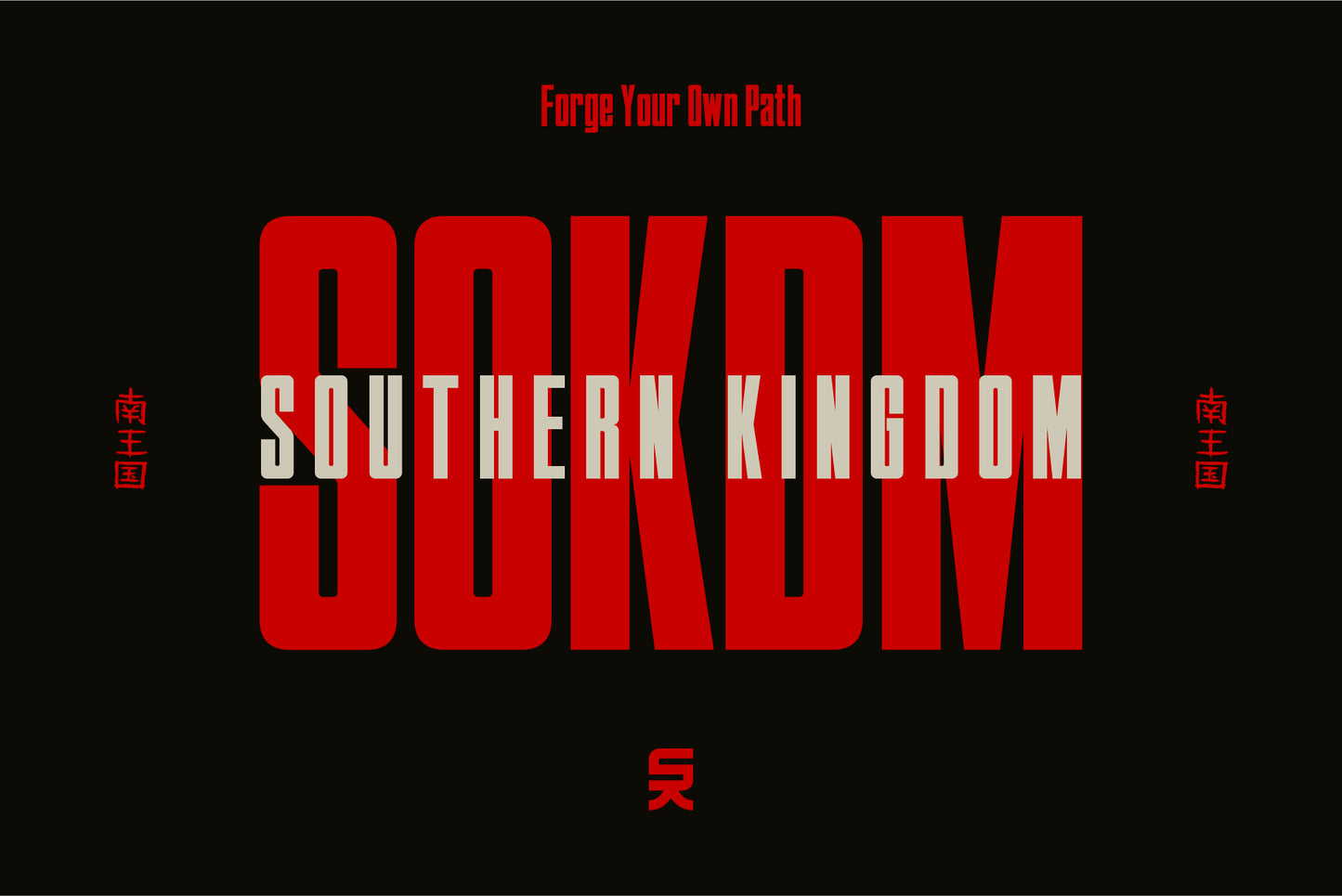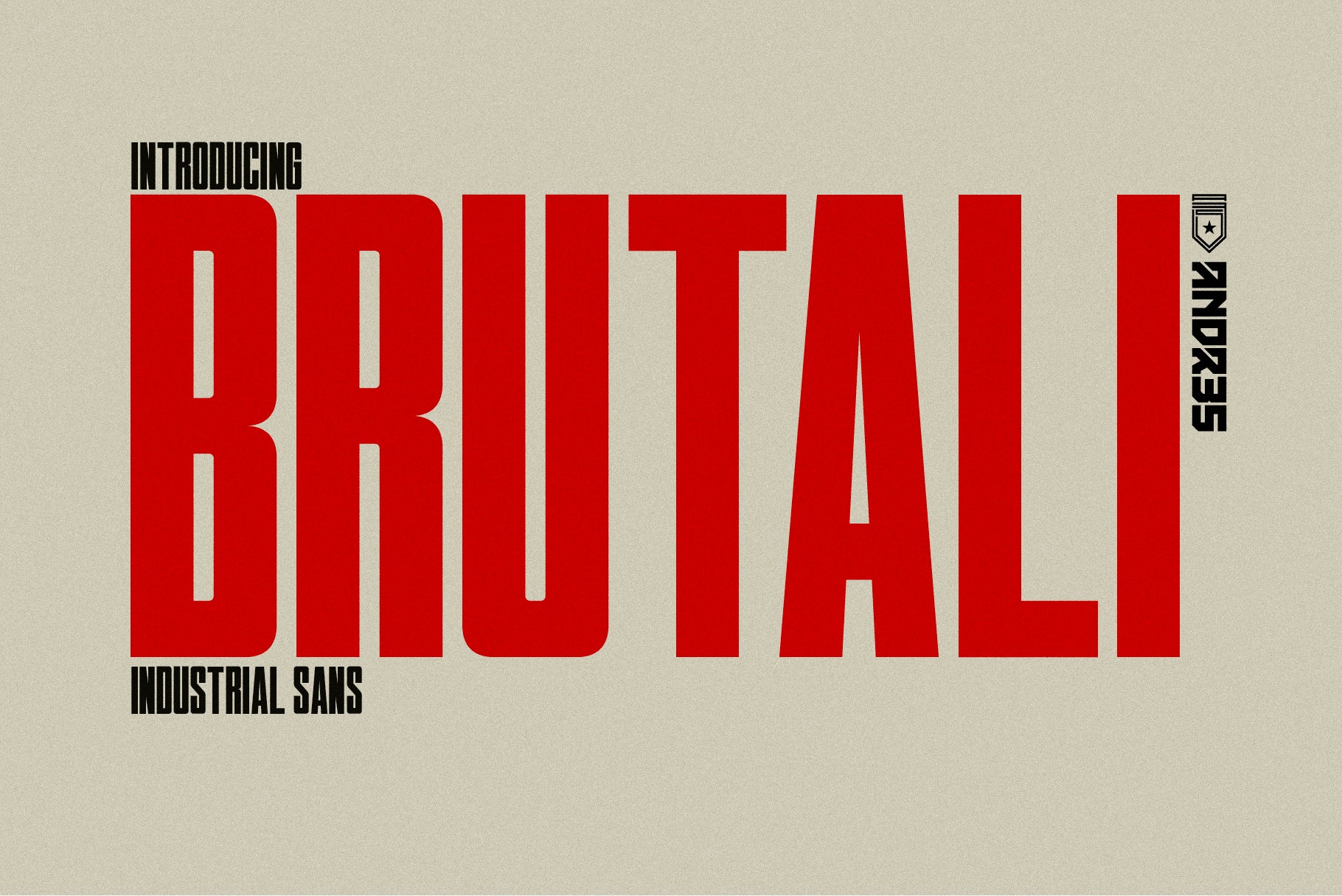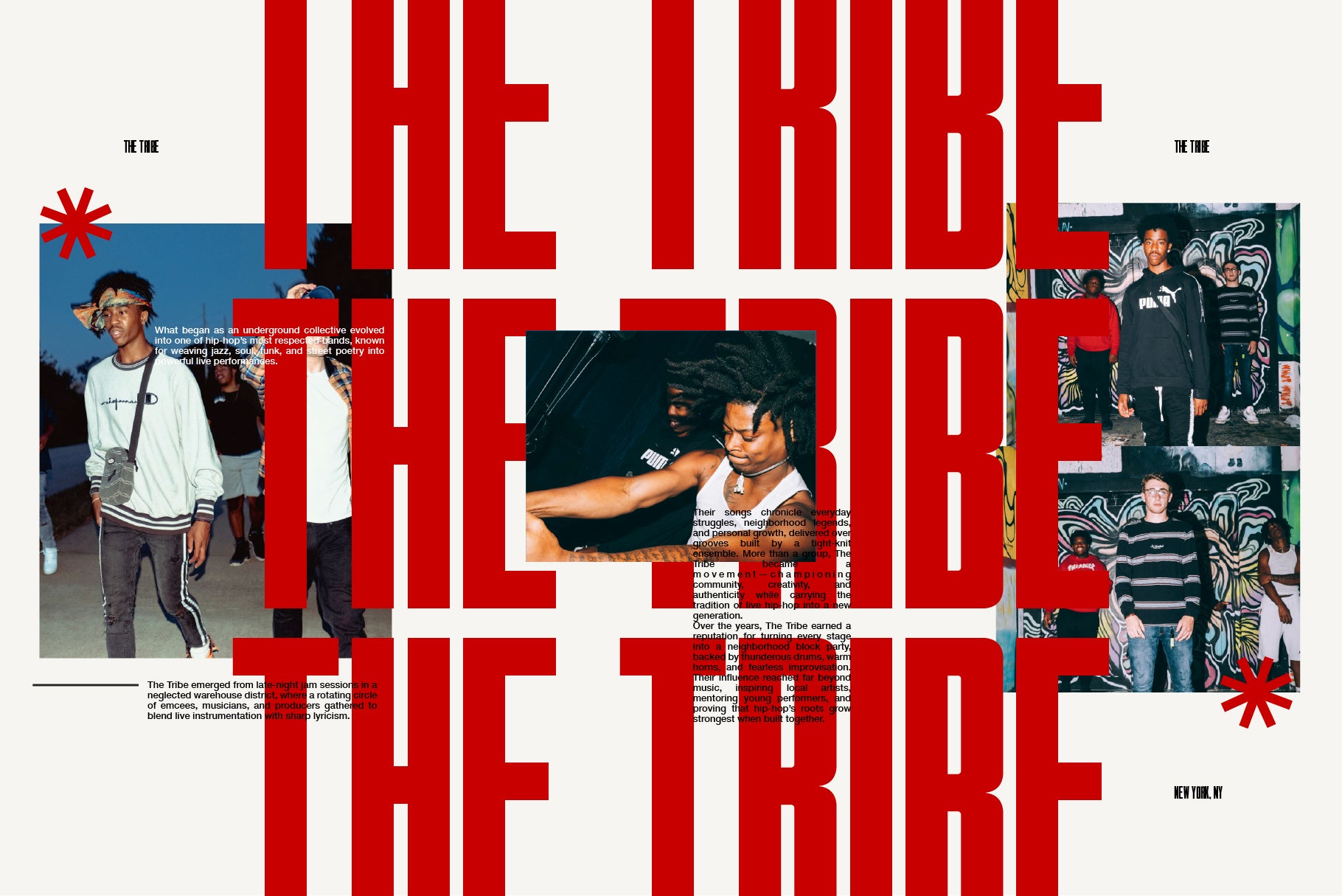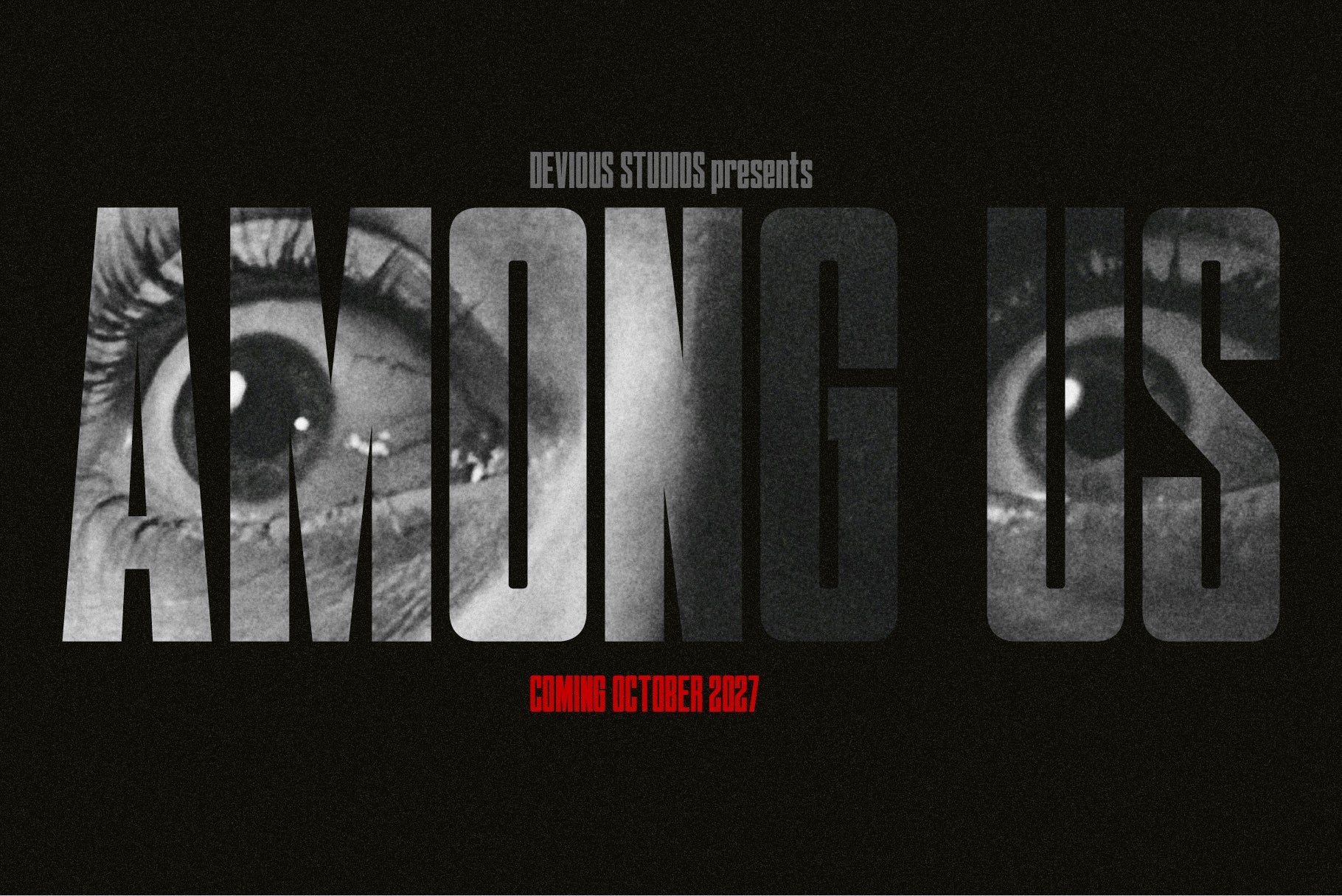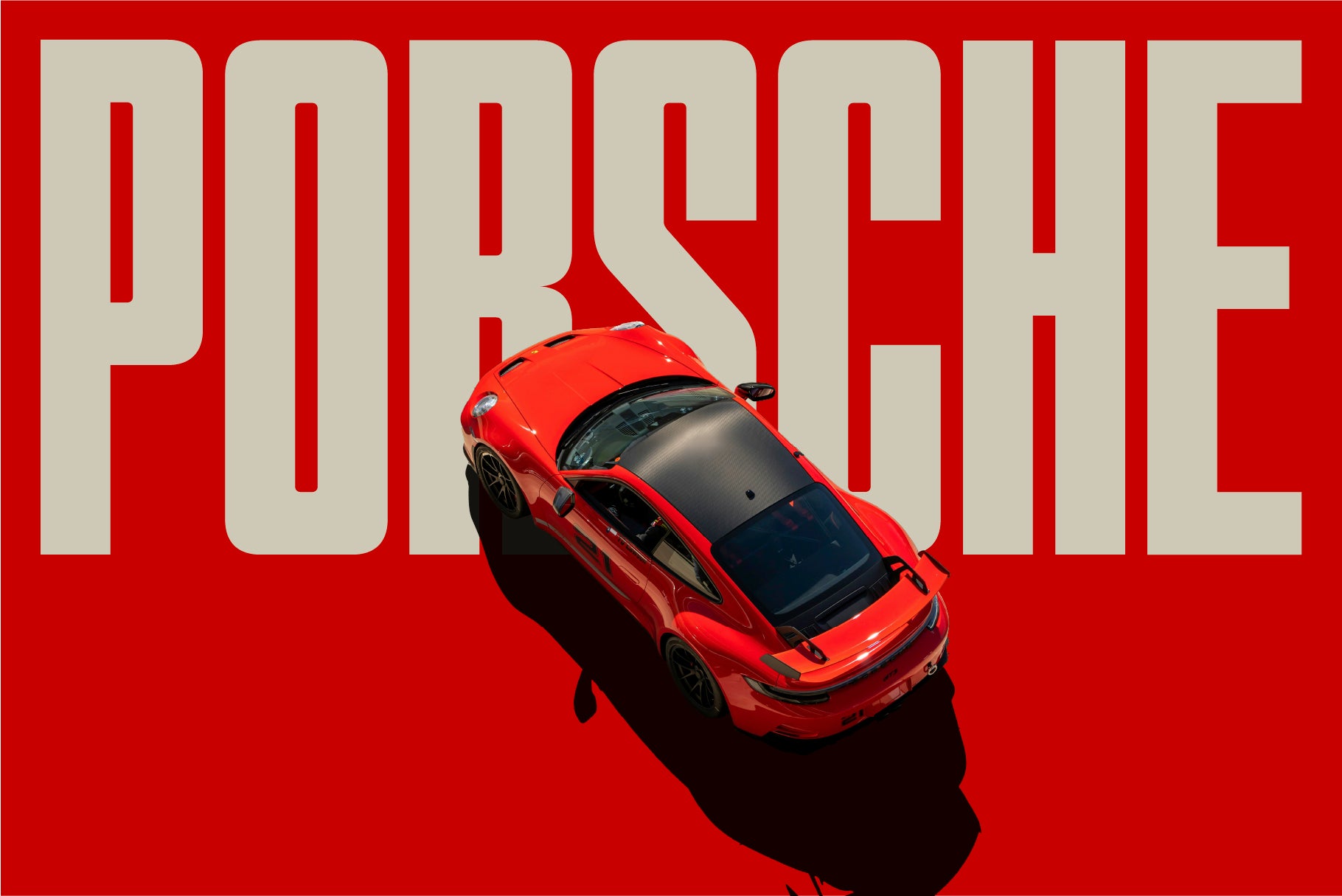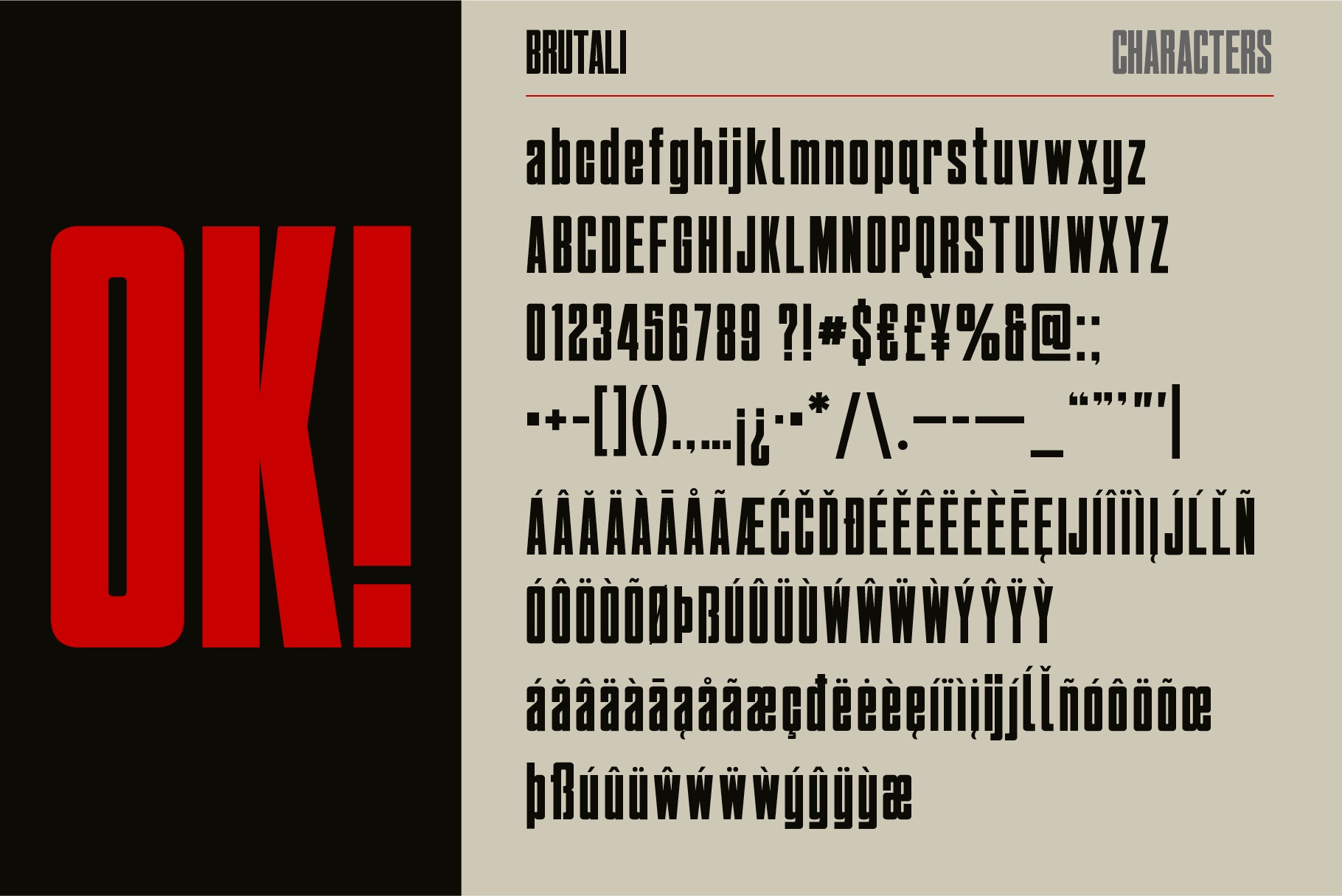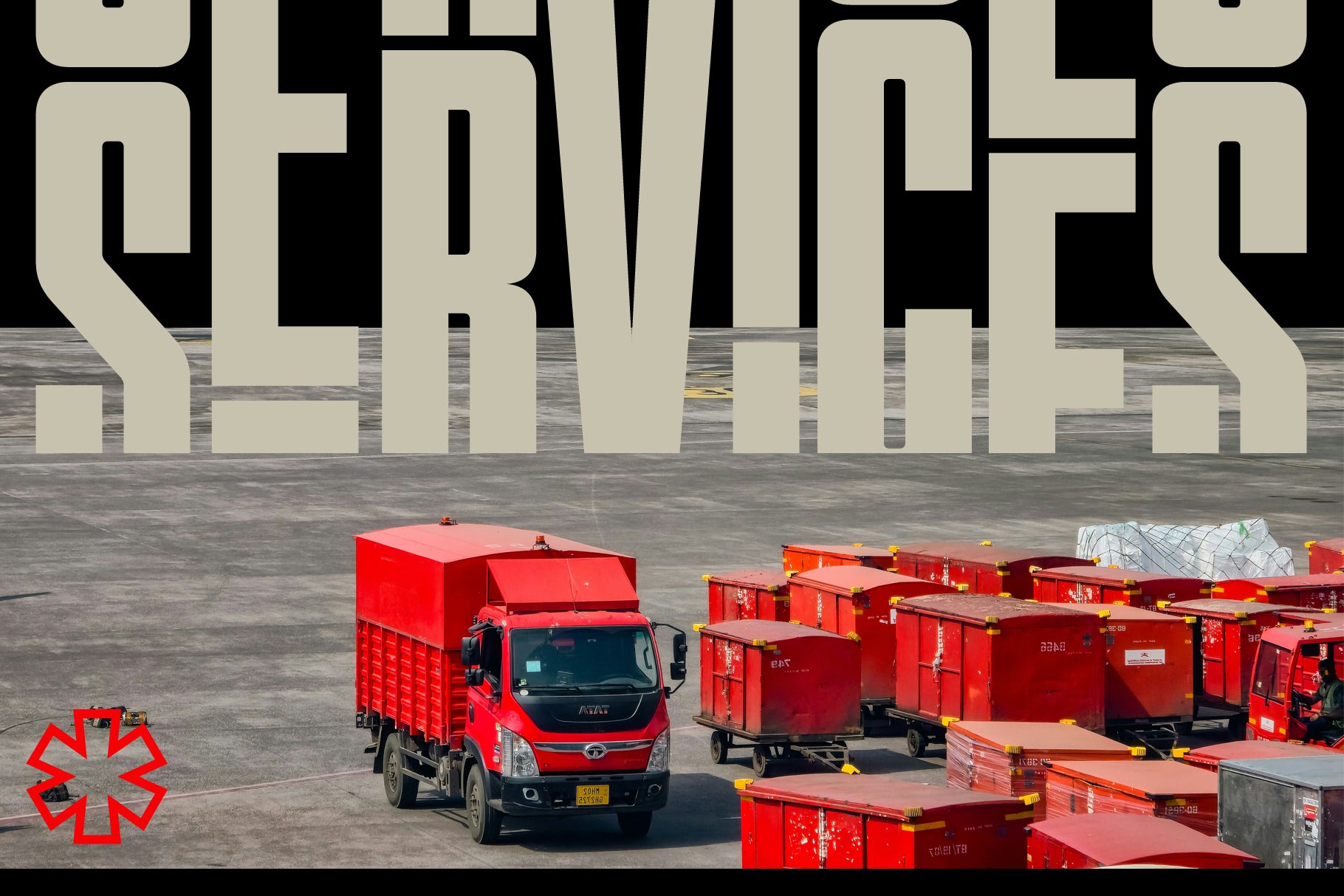
Brutali: Brutalist Display Font
Make a massive statement with Brutali, a raw, unapologetic take on the classic Brutalist-inspired display typeface. Designed for high-impact visual communication, Brutali is all about that ultra-tall, condensed cinematic vibe that instantly commands a room.
Inspiration for this typeface crawled out of mid-century propaganda art, raw industrial architecture, editorial headlines, and vintage protest posters. If you need your text to feel heavy, structured, and impossible to ignore, Brutali delivers.
• Brutali Regular
• Brutali Slanted (Italic): A dynamic, forward-leaning variant designed to inject speed, urgency, and motion into your layouts.
• Full Character Set: Packed with comprehensive multi-language support, numbers, and symbols to ensure your global designs never skip a beat
Built for High-Impact Design
Brutali thrives where standard fonts shrink. It is exceptionally versatile across a range of modern, gritty, and premium design niches:
• Cinematic & Entertainment: Perfect for title cards, psychological thrillers, and high-suspense movie poster mockups.
• Editorial & Lookbooks: Layer it drastically behind or over photography for lookbooks, music zines, and street-culture editorial spreads.
• High-Octane Branding: From luxury automotive tracking to bold corporate statements, it scales beautifully for premium hero graphics.
• Streetwear & Apparel: Create powerful graphic tees, center chest prints, and branding lockups with an underground edge.
• Industrial & Logistics Styling: Its clean, geometric rigidity makes it a perfect fit for utilitarian branding, signage, and heavy machinery concepts.
Design Tip: Because of its ultra-condensed nature, Brutali looks best when set at large display sizes.